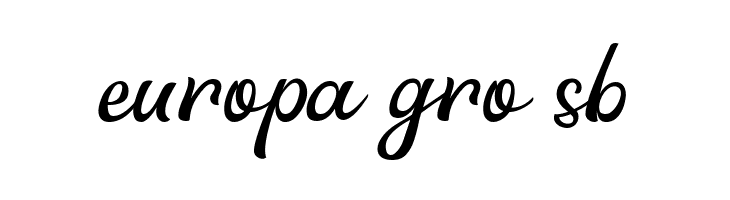
A dynamic, cursive script font with elegant, sweeping strokes.
A flowing, handwritten script font with elegant, elongated strokes.
A playful and elegant script font with flowing, cursive letterforms.
A lively, handwritten script font with fluid, connected letters.
A lively and expressive script font with dynamic, cursive letterforms.
A playful, handwritten script font with smooth, flowing lines.
A graceful script font with fluid, cursive strokes and a handwritten feel.
A bold, energetic handwritten font with dynamic curves and a playful style.
A dynamic and flowing script font with elegant, cursive letterforms.
A bold, playful handwritten font with a dynamic and casual style.
Elegant cursive script with a modern touch.